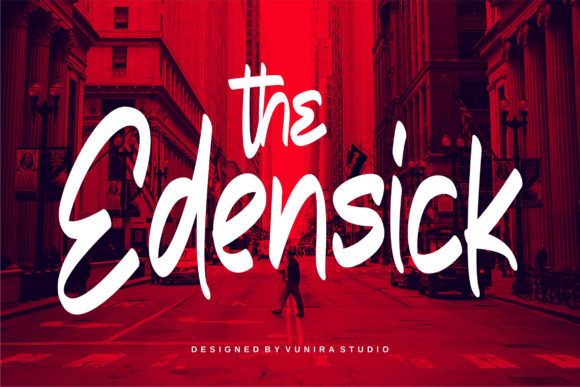
Unleash the captivating charm of The Edensick Font, a masterfully crafted script font that will transform your digital creations into breathtaking masterpieces. Immerse yourself in the world of artistry as you explore the endless possibilities of this exquisite font.
The Edensick Font radiates a bold and flowing personality, embodying the essence of grace and elegance. Its meticulously designed curves and intricate details breathe life into your words, making every letter a testament to artistry. This versatile font adapts effortlessly to various projects, adding a touch of sophistication to your stationary art, igniting your social media posts with vibrancy, and elevating your designs to captivating heights.
Picture the allure of your wedding invitations adorned with The Edensick Font's elegant strokes, creating a timeless keepsake that captures the essence of your special day. Envision the impact of your social media posts, alive with vibrant colors and captivating text that commands attention and sparks engagement. The Edensick Font empowers you to express your creativity in myriad ways, transforming ordinary words into extraordinary visual experiences.
With The Edensick Font, the possibilities are boundless. Elevate your branding with logos that exude professionalism and uniqueness. Craft eye-catching posters and flyers that demand attention and leave a lasting impression. Unleash your imagination and create stunning greeting cards, invitations, and other paper goods that showcase your impeccable taste and attention to detail.
Indulge in the artistry of The Edensick Font and elevate your creative endeavors to new heights. Embrace the power of this extraordinary font and let your imagination soar. The Edensick Font awaits your touch, ready to transform your digital creations into works of art that captivate and inspire.